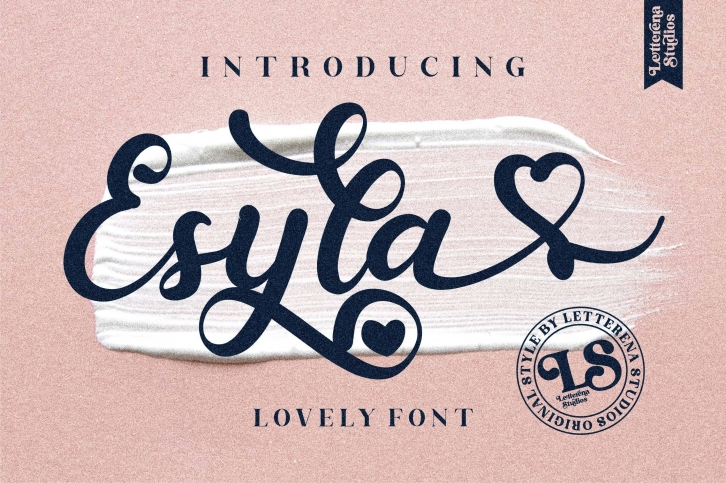
Esyla is a great font that was designed by Letterena Studios. Imagine the amount of combinations you can create using this font! The archive is 7.15 MB and it was released on December 27, 2020. Esyla looks beautiful on wedding invitations, greeting cards, logos, posters, labels, t-shirt designs, logos, business cards and is perfect for use in ink or watercolor works, fashion, magazines, packaging and food menus, children's books and more!